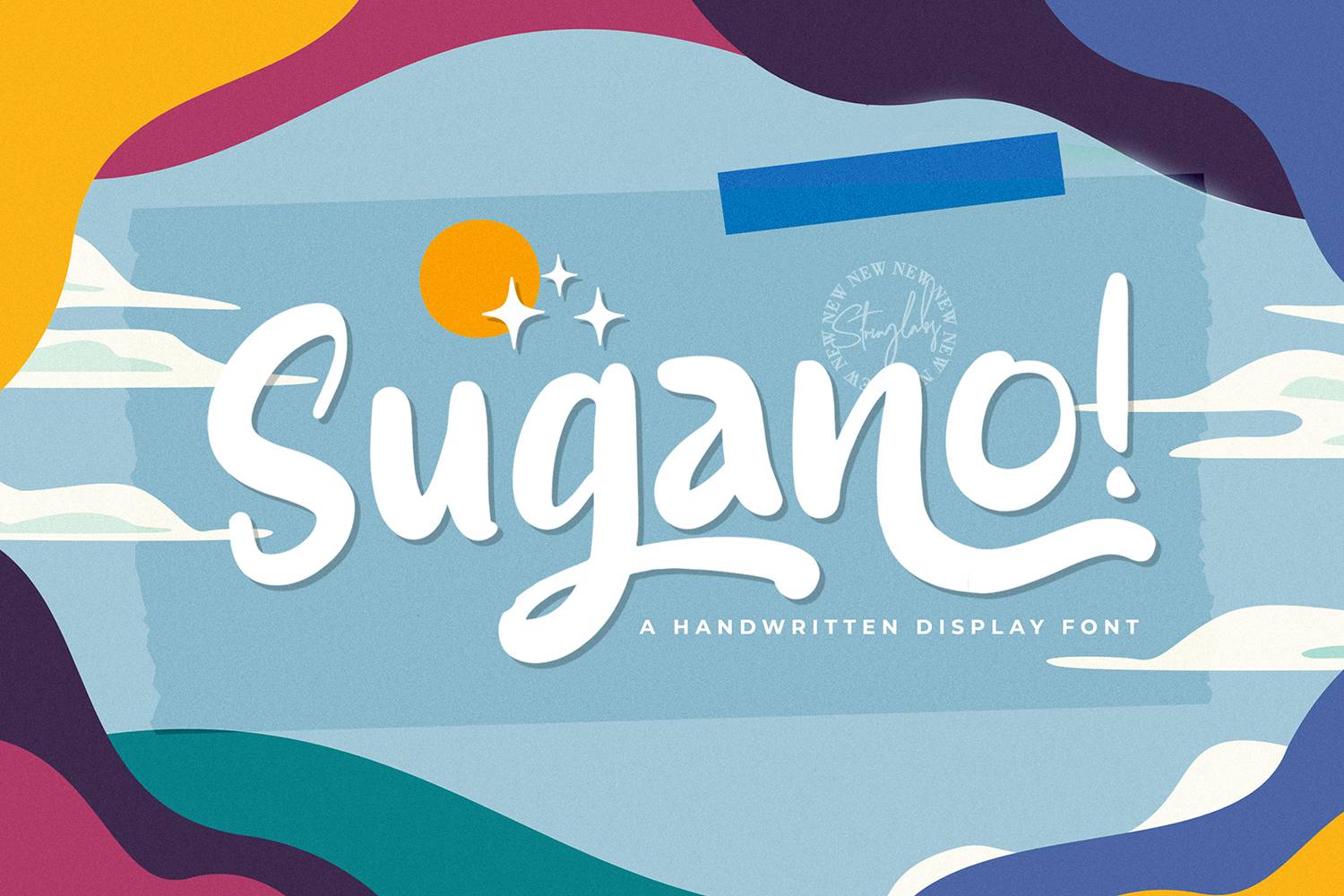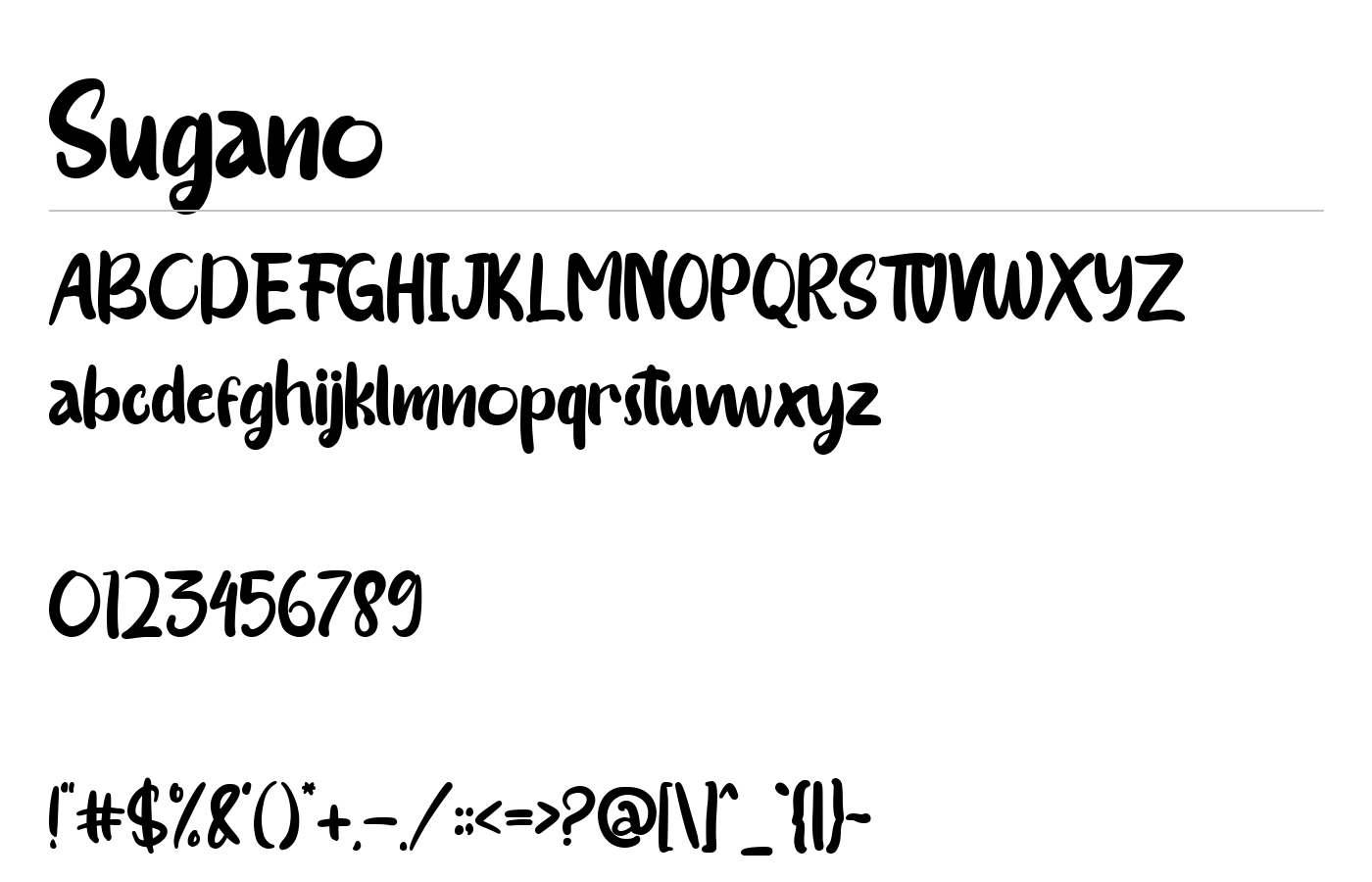
Sugano is a lively sans serif font with a playful, handwritten style that feels casual and approachable. Its moderately bold weight, rounded forms, and slightly condensed width give it a friendly and energetic personality, making it ideal for creative branding, informal communications, and eye-catching headlines. This font works well where a warm, personal touch is needed, such as children's materials, fun packaging, or social media graphics.
Sugano Font